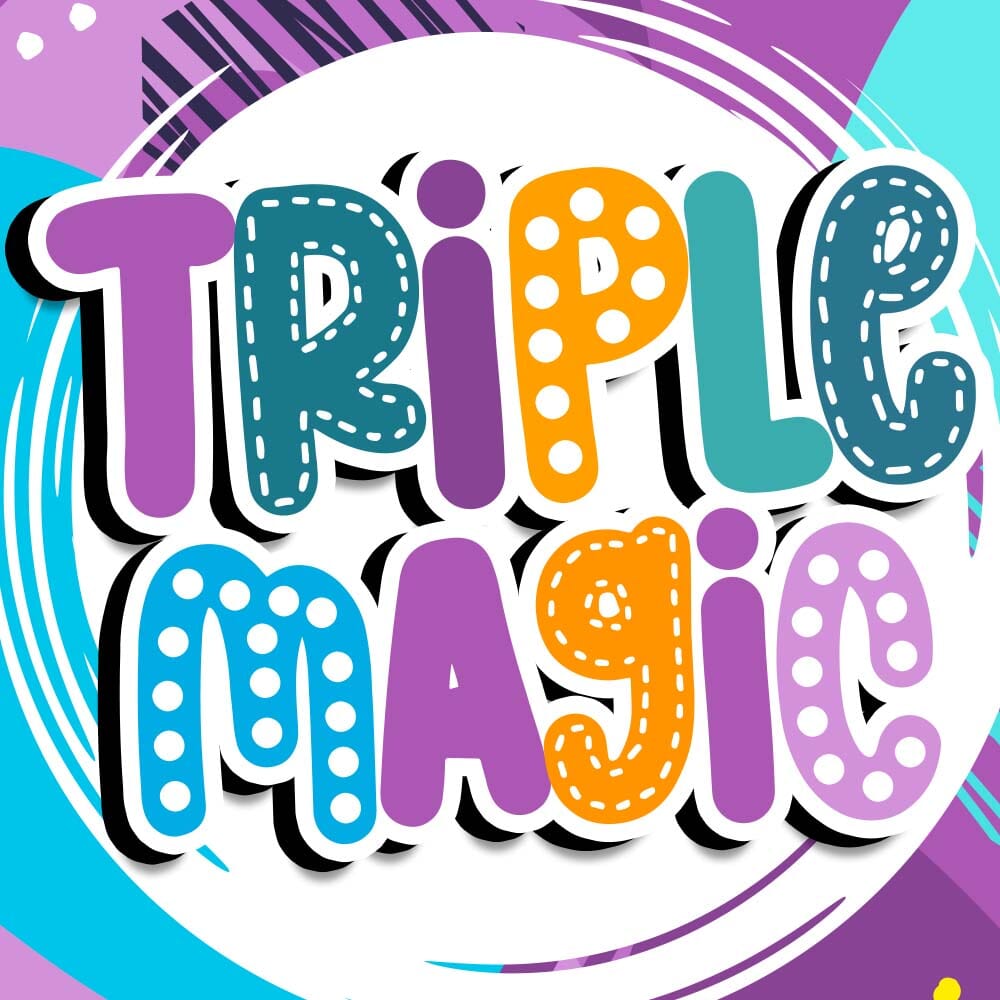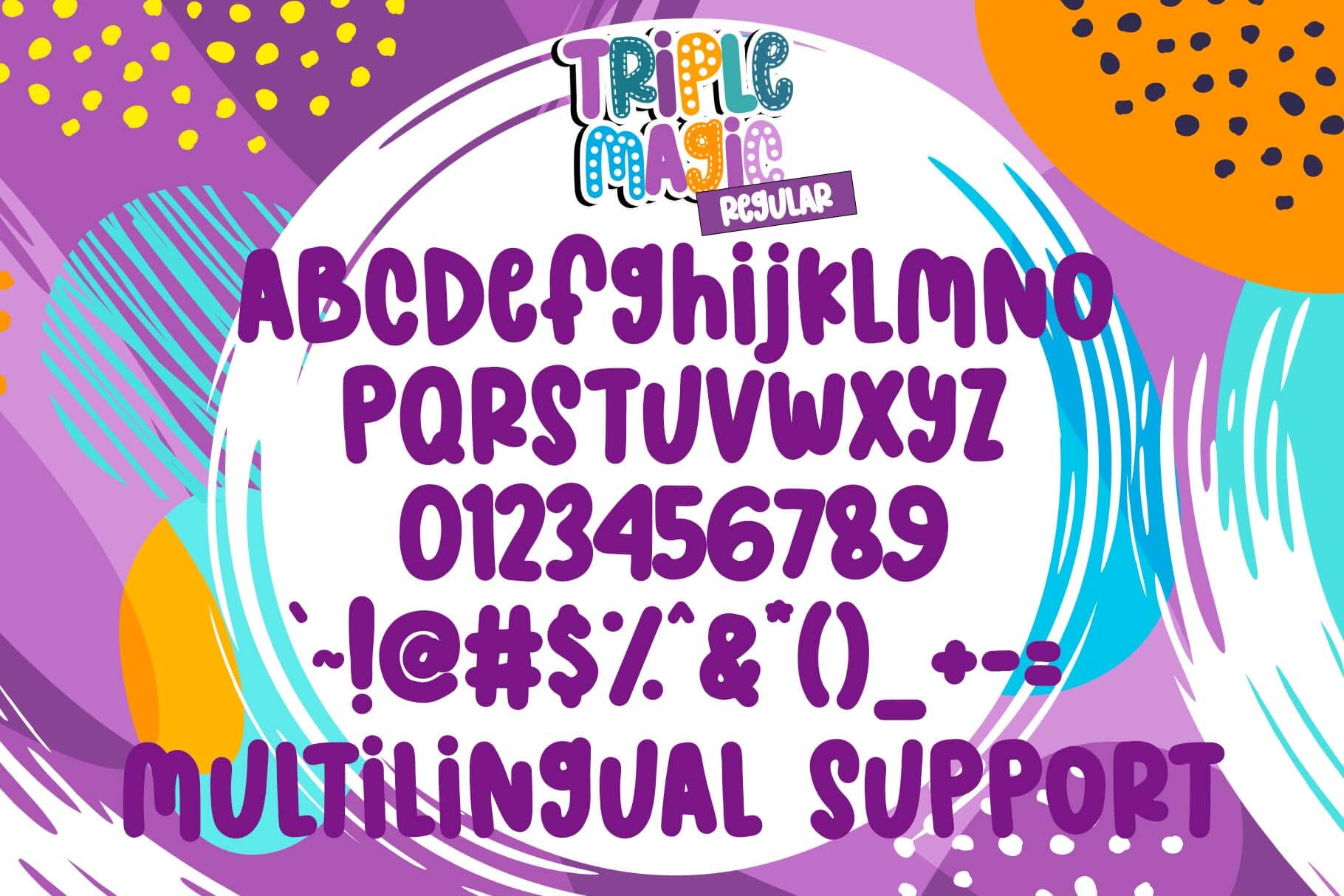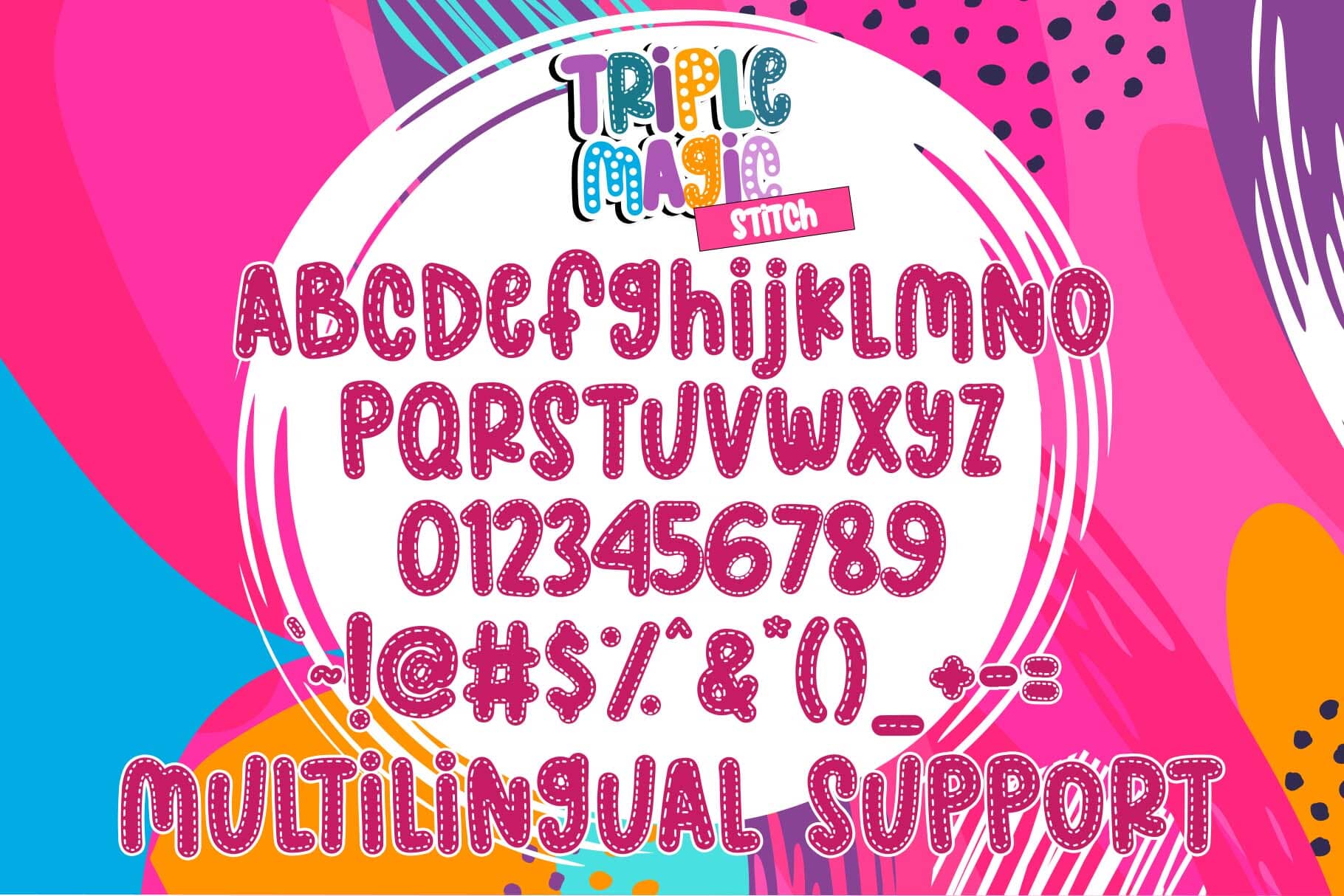
Triple Magic Font: Enchanting Typeface with Dot & Stitch Styles
Elevate your designs with the captivating Triple Magic Font. This versatile typeface brings enchantment to creative projects through three distinct styles: standard, dot, and stitch variations. Whether you’re a professional designer or a creative enthusiast, Triple Magic Font offers the flexibility to transform ordinary text into extraordinary visual elements.
Triple Magic Font Features
- Three Magical Styles: Standard font offers versatility for everyday use, dot font adds playfulness with dotted elements, and stitch font provides a handmade aesthetic with detailed stitching effects. Each style can be used independently or combined to create unique typographic designs.
Perfect For
Triple Magic Font excels in various creative applications:
- Graphic Design: Create eye-catching posters, social media graphics, and branding materials. Combine styles for visual interest or use them individually for specific design needs. The font’s distinctive character sets it apart from conventional typefaces.
- Textile and Crafts: The stitch font variation is ideal for embroidery patterns, textile design, and craft projects requiring an authentic handmade appearance. Its detailed stitching effect adds dimension to your creative work.
- Digital Projects: Add modern flair to digital artwork with the dot variation, perfect for contemporary design aesthetics. The playful dot style brings a unique texture to digital compositions and user interfaces.